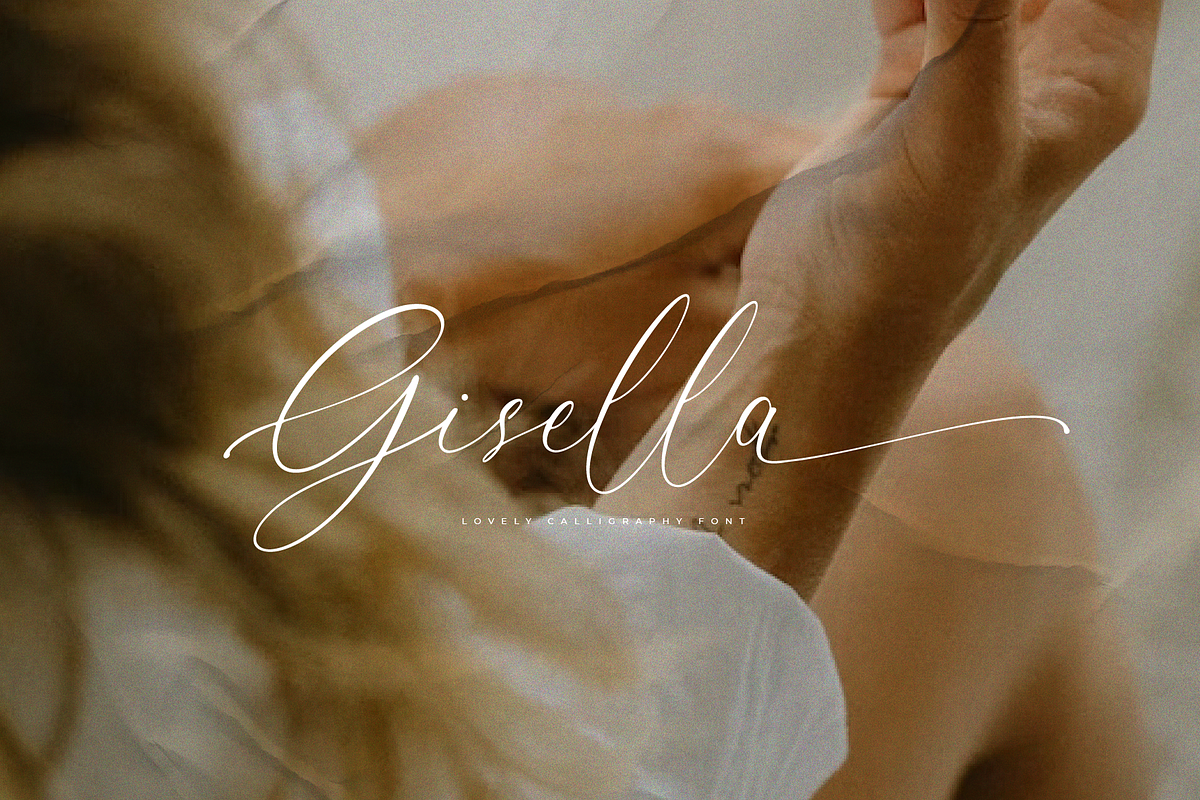
Please note that you must purchase this font for commercial use. You can download Gisella – Lovely Calligraphy Font for free, strictly for personal testing purposes only. Gisella is a beautiful and elegant calligraphy font designed with graceful strokes and flowing curves. With its sophisticated, handwritten feel, Gisella Font Free Download is perfect for a variety of projects, including wedding invitations, logos, branding, greeting cards, and any design that requires a refined, artistic touch.
This font captures the beauty of classic calligraphy while maintaining readability, making it ideal for both formal and casual designs. It includes uppercase and lowercase letters, numerals, punctuation, and multilingual support, offering flexibility for a wide range of creative uses.
Whether you're working on a luxury brand, crafting a custom wedding invitation, or adding a personal touch to a greeting card, Gisella brings elegance and charm to your typography.